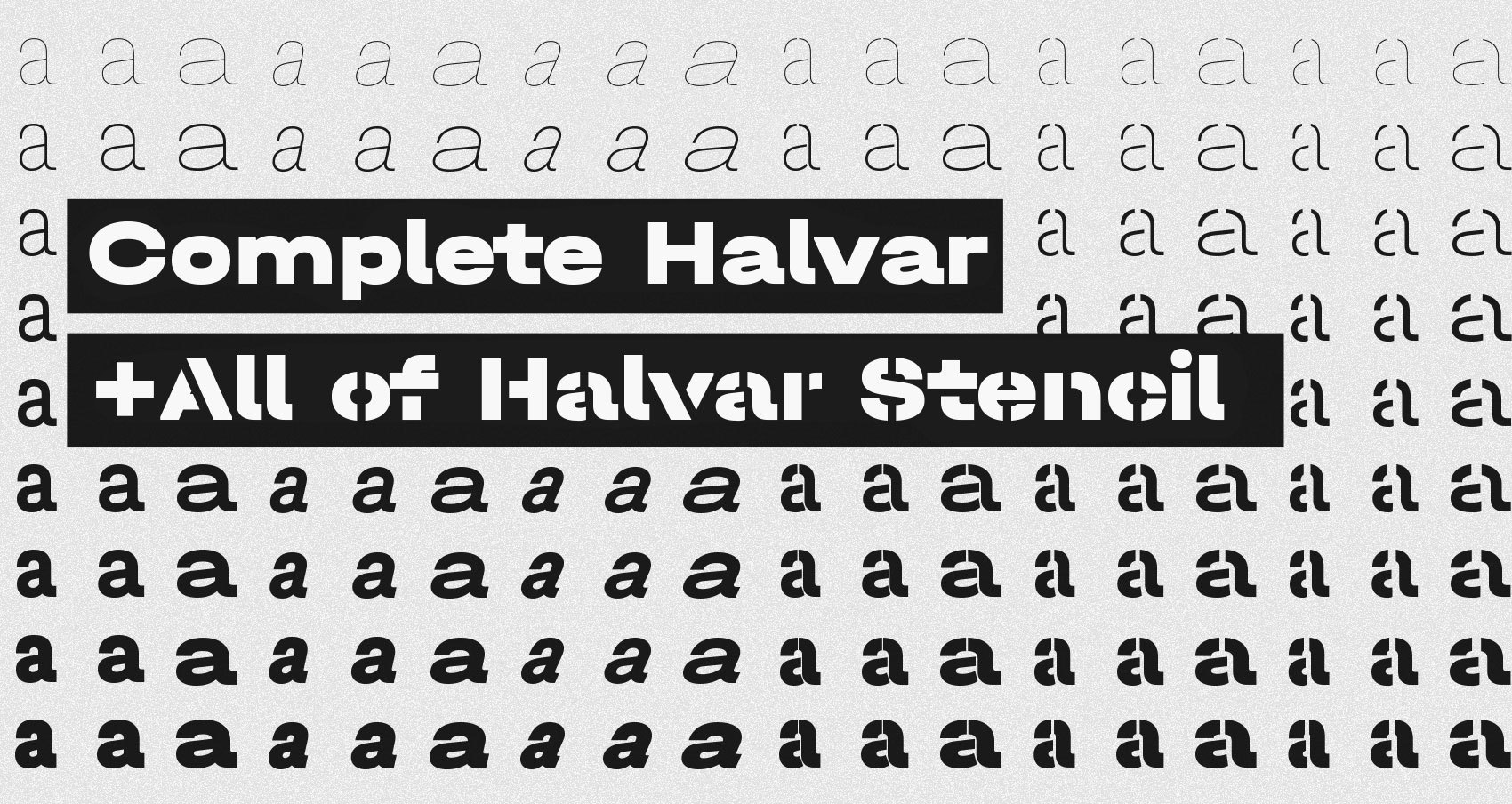
Halvar Font
Halvar Font is perfect for Scandinavian heritage branding, Nordic design studios, Viking-themed entertainment, northern outdoor gear packaging, Scandinavian restaurant signage, cultural heritage marketing, rugged adventure campaigns, and authentic Nordic lifestyle promotions.
What makes Halvar Font exciting is its Nordic strength that embodies the bold courage and cultural heritage of Scandinavian tradition with Viking authenticity and northern resilience. The font features robust letterforms with Nordic proportions and warrior character that evoke ancient runes, Viking longships, and the enduring strength of Scandinavian culture and northern heritage. Its distinctive Nordic styling and warrior appeal communicate courage, heritage, and cultural strength, making every message feel forged in northern tradition and touched by the powerful legacy of Viking courage and Scandinavian cultural pride.
The Halvar Font family includes regular weight with uppercase and lowercase letters, numerals, punctuation marks, and special characters. Premium versions often feature runic alternates and Nordic elements that enhance the warrior, heritage aesthetic perfect for Scandinavian and cultural applications.
The warrior character of Halvar Font makes it particularly valuable for Scandinavian cultural centers, Nordic tourism operators, and Viking heritage businesses. Its excellent readability ensures cultural messaging and Nordic communications remain clear while maintaining the distinctive warrior aesthetic that appeals to audiences seeking authentic Scandinavian experiences and Viking cultural heritage.
Nordic heritage marketers appreciate how Halvar Font effortlessly conveys Scandinavian authenticity and Viking strength. The font's robust proportions and warrior details create powerful brand materials that establish connections with audiences who value Nordic culture, Viking heritage, and the courageous strength of Scandinavian tradition and northern cultural pride.
The versatile strength of this typeface extends to Nordic outdoor equipment, Viking historical education, and Scandinavian cultural preservation where warrior authenticity enhances cultural credibility and heritage appeal. Halvar Font Free Download provides creative professionals with an essential tool for developing memorable, heritage-driven designs that resonate with audiences who embrace Scandinavian culture, Viking strength, and the robust authenticity of Nordic heritage in their cultural and adventure experiences.